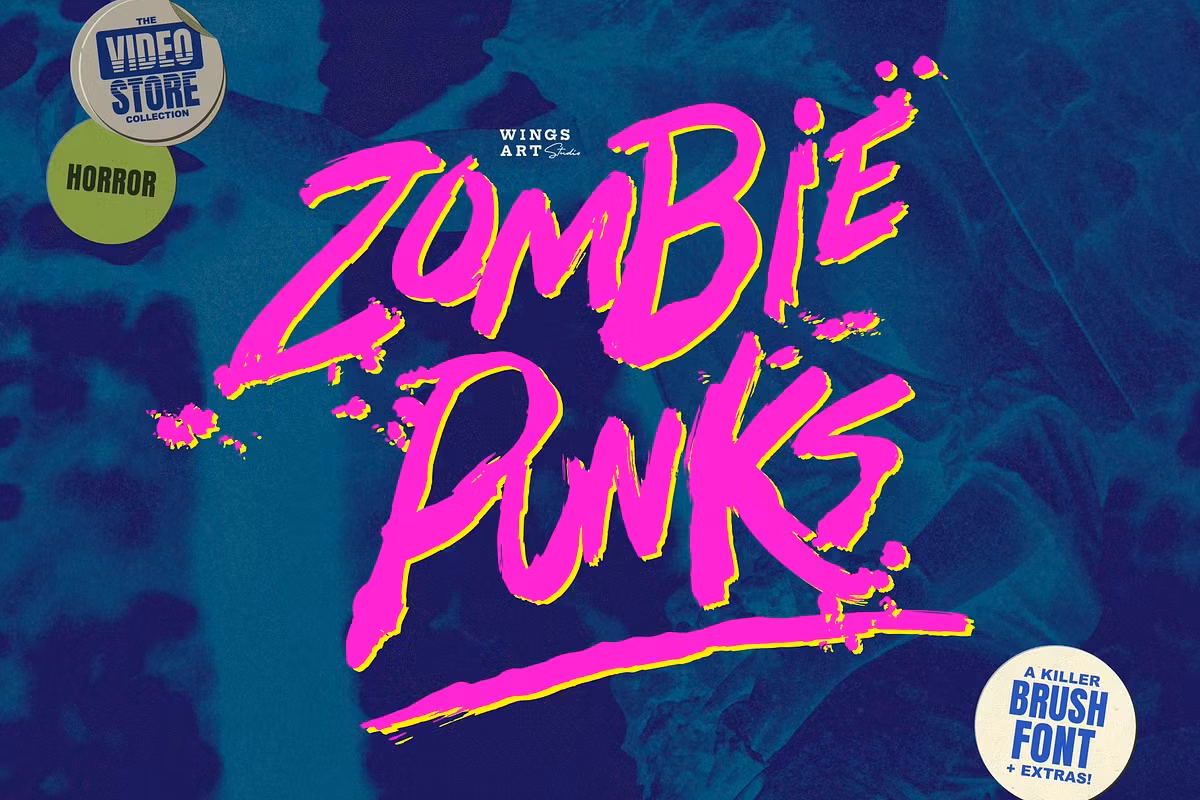
Zombie Punks - The Retro Horror Font Free Download
Zombie Punks - The Retro Horror Font Free Download is a gritty, chaotic typeface inspired by classic horror comics, punk rock posters, and VHS-era slasher films. With its jagged edges, rough textures, and high-energy letterforms, this font is perfect for Halloween flyers, horror movie titles, underground zines, band merch, and anything that screams vintage terror with attitude.
Zombie Punks brings a raw, hand-drawn aesthetic that captures the rebellious spirit of retro horror. Whether you're creating eerie designs or edgy street-style visuals, this font delivers a powerful punch of nostalgic fear.